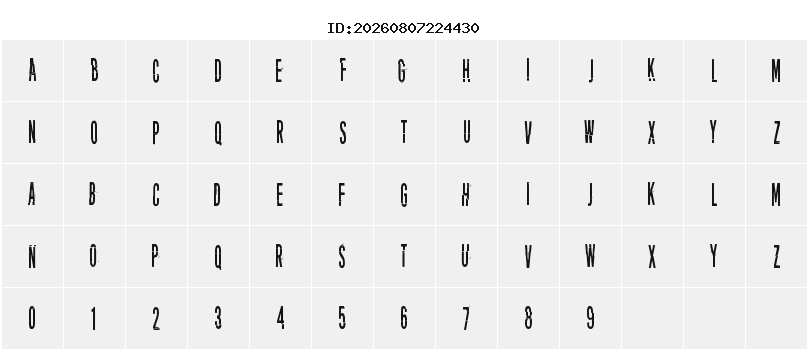
• Font Name: Puolelta toiselle
About Puolelta toiselle.otf
Puolelta toiselle.otf is a modern, elegant sans-serif font designed for ultimate readability and visual harmony. Perfect for branding, headlines, web design, and print materials.